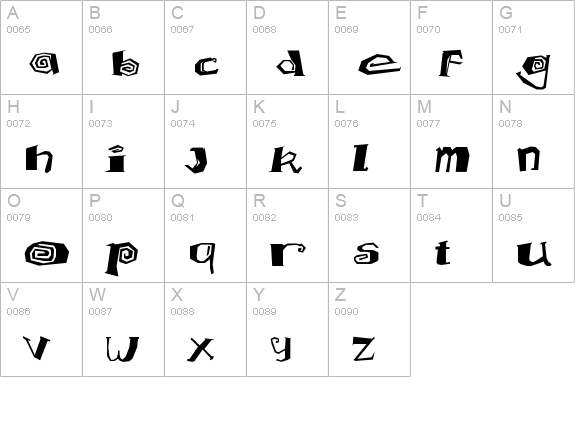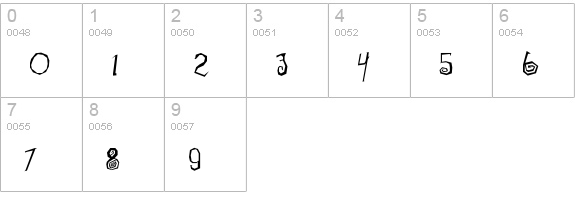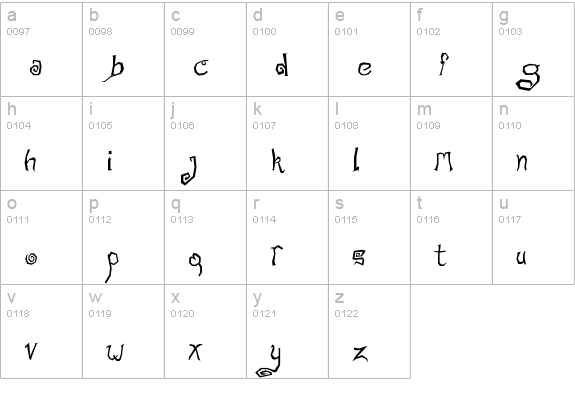
Math Donuts Font Details
Introducing Math Donuts, a delectable and whimsical font that will surely add a sprinkle of mathematical delight to your designs! With its playful curves and charming letterforms, Math Donuts is the perfect choice for those looking to add a touch of fun and creativity to their projects. This delightful font is not only visually appealing but also incredibly versatile. Whether you're designing a birthday invitation for a math-themed party, creating educational materials for young learners, or simply adding a unique twist to your personal artwork, Math Donuts is sure to capture attention and bring a smile to anyone's face. But that's not all – the best part is, Math Donuts is completely free! Yes, you read that right. This delightful font is freely available to download at FontsMarket.com, making it accessible to designers and creatives from all walks of life. Say goodbye to expensive font licenses and hello to endless possibilities with Math Donuts. So go ahead, embrace your inner math lover and indulge in the sweetness of Math Donuts. Download this charming font today and let your imagination run wild. With Math Donuts in your design arsenal, you'll be able to create eye-catching and memorable designs that are sure to stand out from the crowd. Don't miss out on this delightful treat – get your hands on Math Donuts now and let the creativity begin!